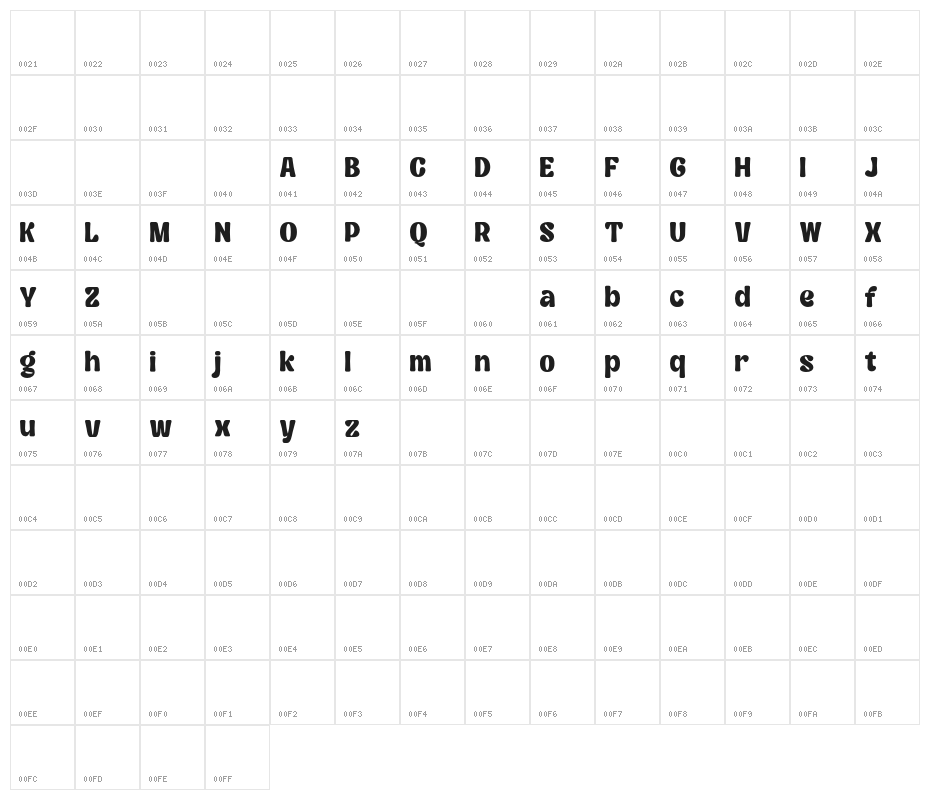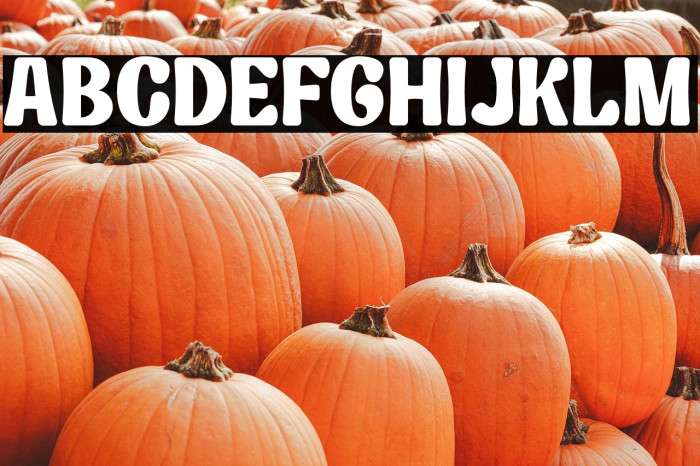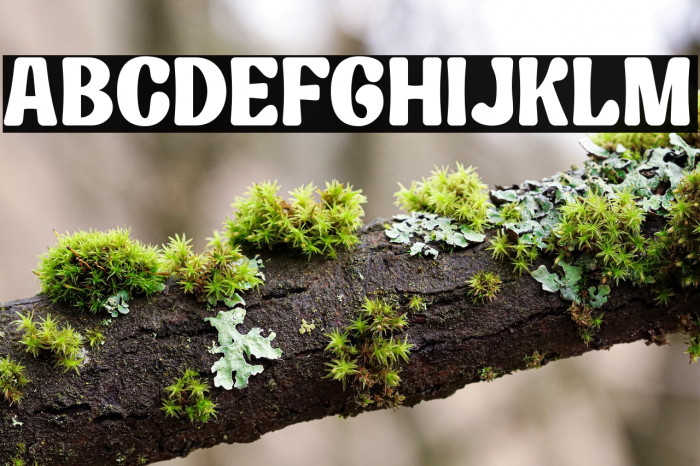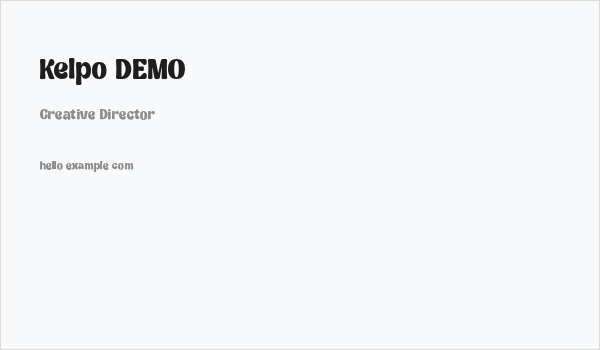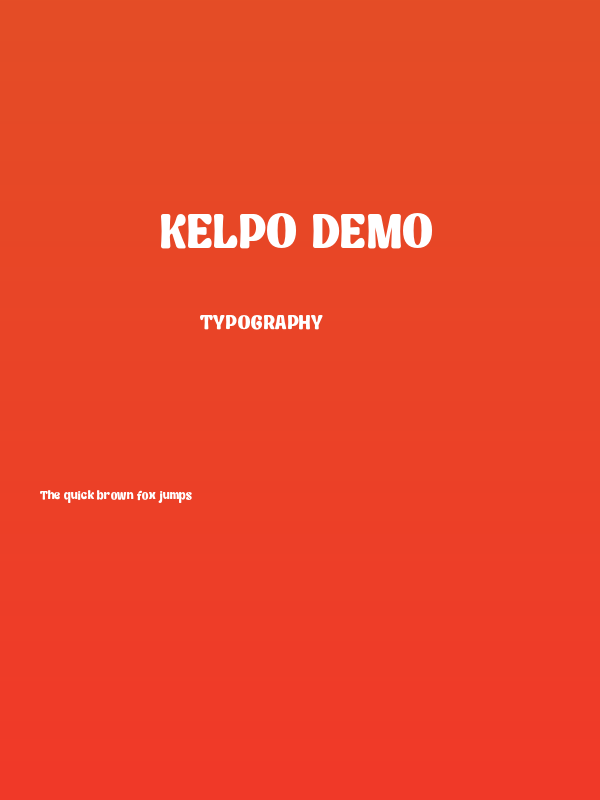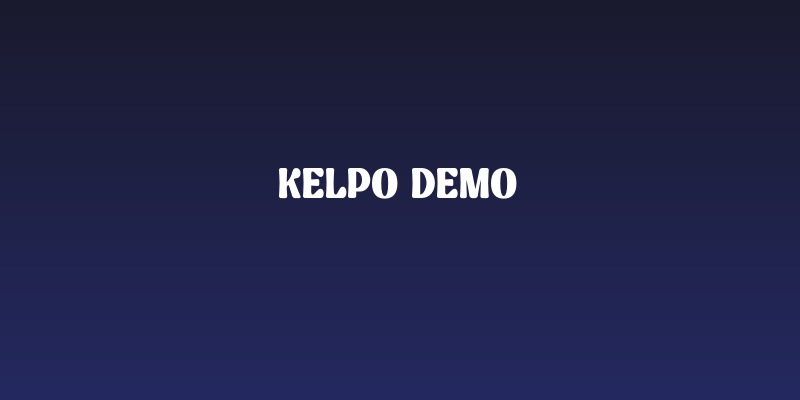
Kelpo DEMO Font
Kelpo DEMO Description
This font features a bold and playful design with rounded edges and a slightly whimsical appearance. The characters are thick and have a consistent stroke width, giving them a strong presence on the page. The uppercase letters are robust and commanding, while the lowercase letters maintain a friendly and approachable feel. The numbers and special characters are designed to match the overall style, ensuring a cohesive look across all text. The font's unique style makes it suitable for creative and informal projects.
| Proposed Projects | Ideal for children's books, playful branding, posters, and creative invitations. |